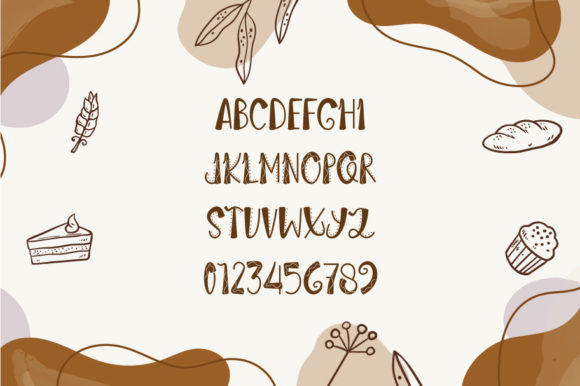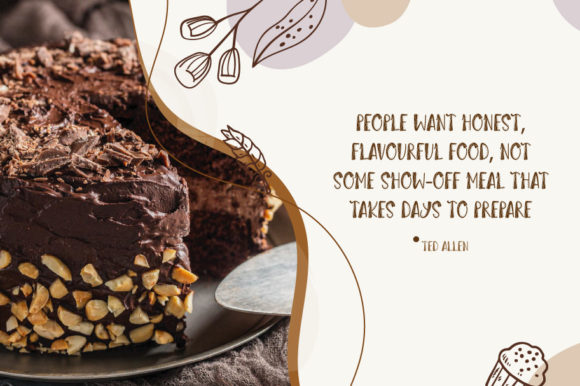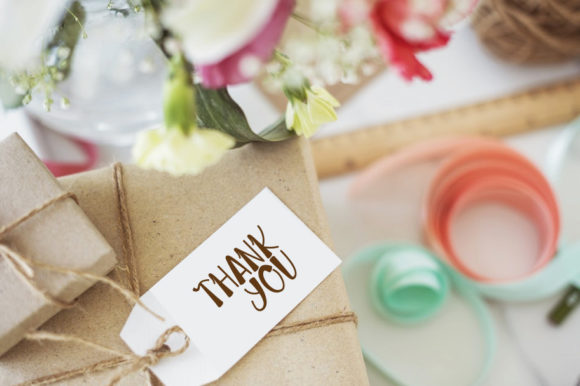
Introduction to Sacon Font
Have you ever been brainstorming a creative project, and the perfect font just slipped your mind? You know, that one that would elevate your design from good to great? I’ve been there too. But what if I told you that there’s a font that can bring your ideas to life and make them truly stand out? Say hello to the Sacon Font, a playful display font that’s sure to add some excitement to your creative endeavors.
As designers, we’re always on the lookout for high-quality design resources that can help us create something truly unique. And that’s exactly what the Sacon Font offers. With its free download and transparent background, this font is a valuable addition to any design toolkit. Whether you’re working on a personal project or a commercial one, the Sacon Font is sure to bring a touch of creativity and whimsy to your designs.
So why not give the Sacon Font a try? With its high-quality design and playful vibe, it’s the perfect way to add some personality to your creative projects. And the best part? It’s available for free download, making it an accessible design resource for designers of all levels.
Key Features of Sacon Font
- High-quality design resource ideal for creative projects, available for free download
- Unique, modern font style suitable for various design applications
- Comes with a transparent background, allowing for seamless integration into any design
- Perfect for designers and artists looking for a versatile and stylish font for their next creative project
Honest Review: Sacon Font
I recently stumbled upon the Sacon Font, and I must say, it’s been a game-changer for my creative projects. As a designer, I’m always on the lookout for high-quality design resources that can elevate my work. And let me tell you, Sacon Font delivers.
Here are some things that work well with Sacon Font:
- ✨ Its unique and modern design aesthetic makes it perfect for contemporary creative projects.
- ✨ The font is available for free download, which is a huge plus for designers on a budget.
- ✨ The transparent background option allows for seamless integration with any design element.
- ⚠️ The font doesn’t come with a comprehensive character set, which can be a bit of a letdown for designers working on complex projects.
- ⚠️ The font’s versatility can be limited when used in certain contexts, such as for small text sizes.
Overall, I’m really impressed with the Sacon Font. It’s a high-quality design resource that’s perfect for designers working on creative projects. While it may have some limitations, its unique design and free download option make it a valuable addition to any designer’s toolkit.
Tips for Getting the Most Out of Sacon Font
To get the most out of Sacon Font, experiment with different font sizes, colors, and styles. You can also use Sacon Font in combination with other design elements to create a unique and eye-catching design.
Common Use Cases for Sacon Font
Sacon Font is a versatile font that can be used in a variety of creative projects, such as logos, branding materials, and marketing materials. It is also suitable for use in presentations, reports, and other business documents.
Q: Is the Sacon Font suitable for high-quality print materials?
Yes, the Sacon Font is designed to meet the highest standards of print quality. Its high-quality design and precise typography make it an excellent choice for business cards, brochures, and other marketing materials that require a professional finish.